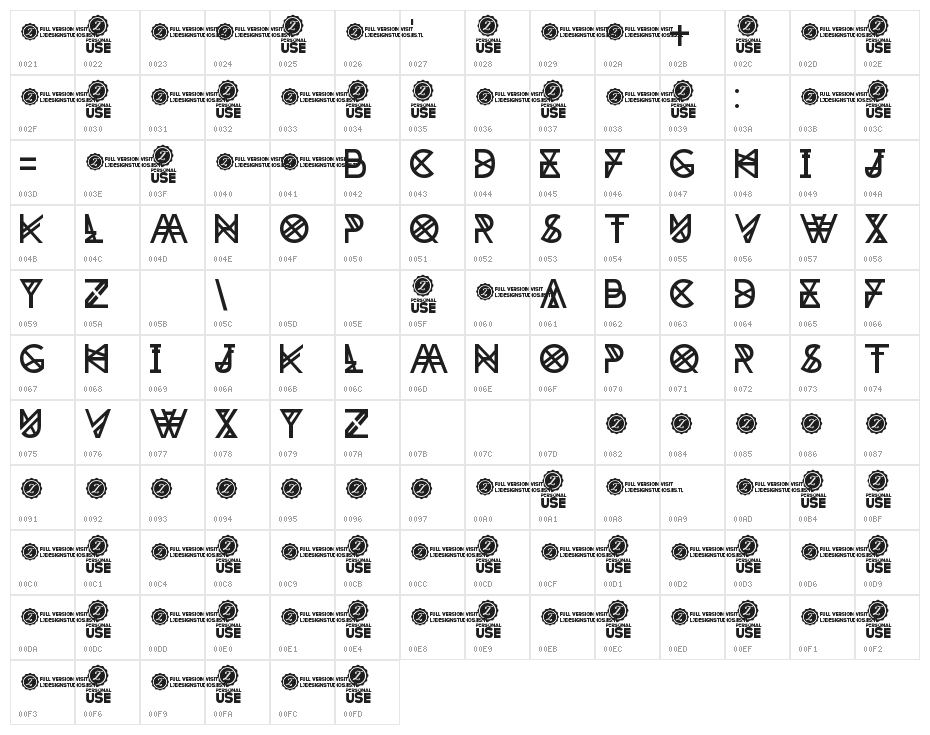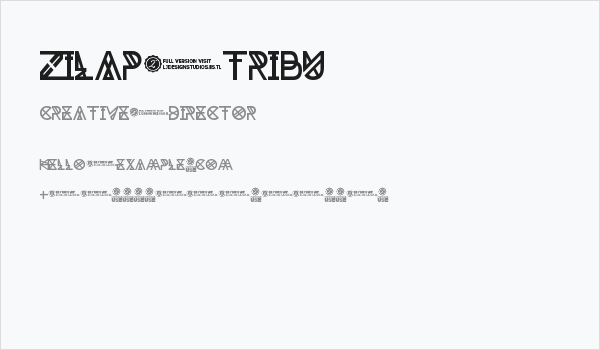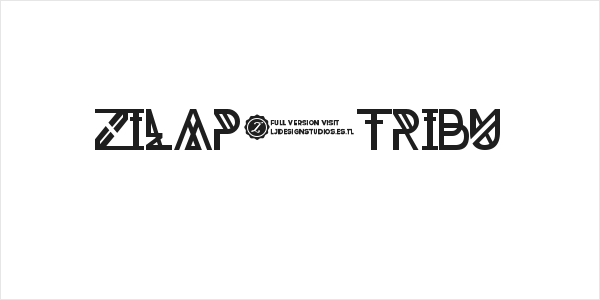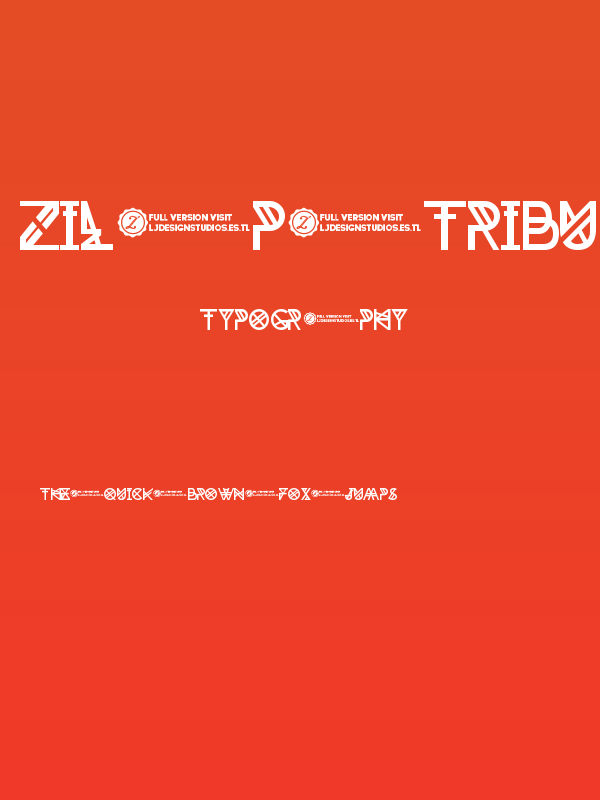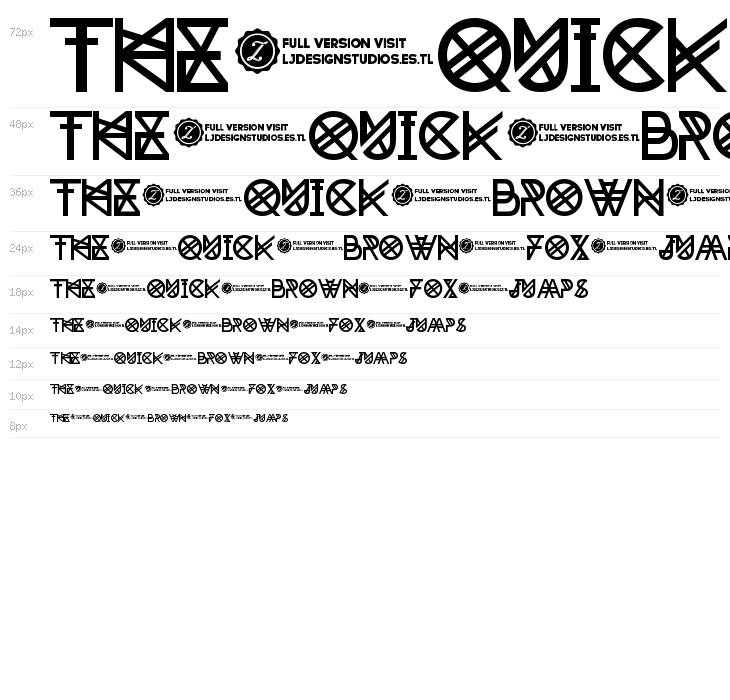
Zilap Tribu Font
Zilap Tribu Description
This font features a bold and geometric design, characterized by its tribal-inspired patterns and angular shapes. Each letter is crafted with a unique combination of lines and angles, creating a striking visual impact. The uppercase letters are particularly distinctive, with intricate details that resemble ancient symbols or runes. The font's style is both modern and primitive, making it suitable for projects that require a strong and unconventional aesthetic. Its boldness ensures high visibility, while the geometric elements add a layer of complexity and intrigue.
| Overall Style | Modern, Tribal |
| Use Case | Logos, Posters, Branding |
| Proposed Projects | Ideal for branding, logos, posters, and any design project that seeks a bold and unique tribal aesthetic. |